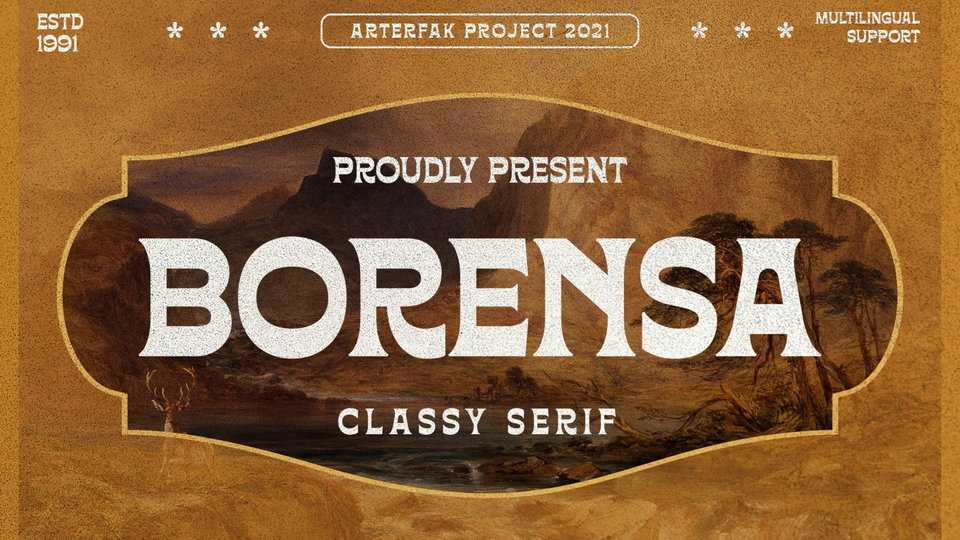
Download Borensa font, a serif exploration with reversed contrast and unique shapes, inspired by the historical books and vintage signage. Borensa is classically elegant to be applied to formal designs and can be used for the headline and long text.